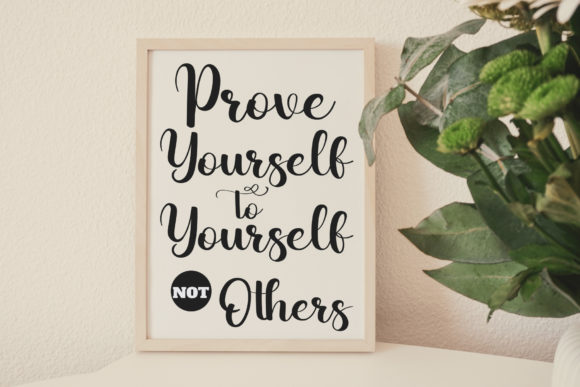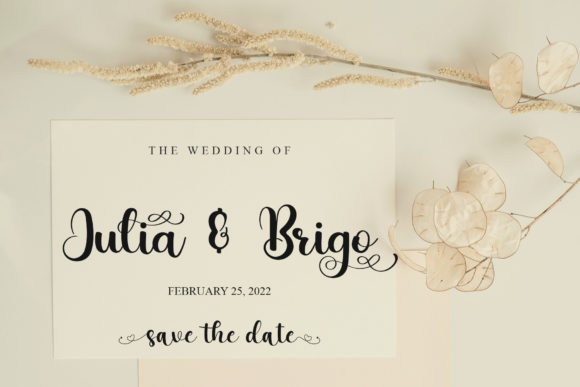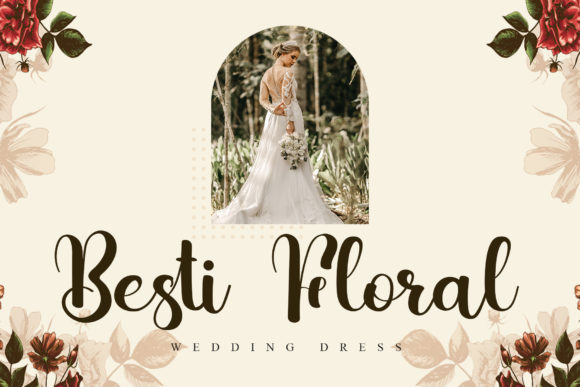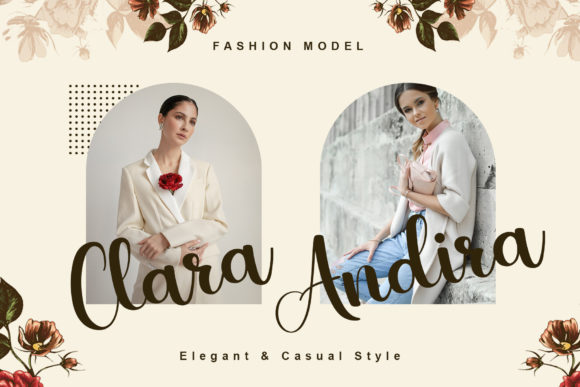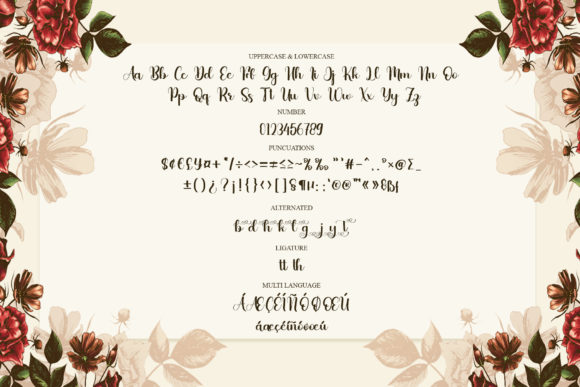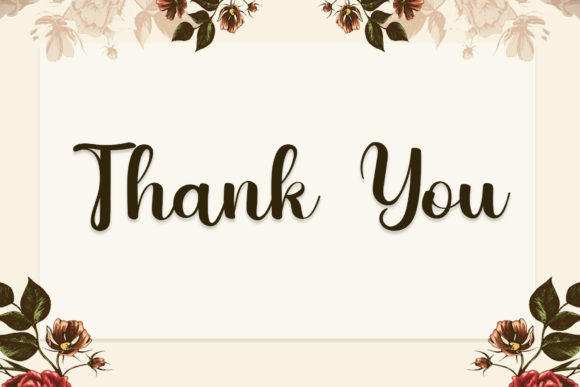
Amazing Valentine Font – Free Download
Introduction to Amazing Valentine Font
Amazing Valentine is a romantic and sweet calligraphy typeface with characters that dance along the baseline.
Key Features of Amazing Valentine Font
Why Choose Amazing Valentine Font?